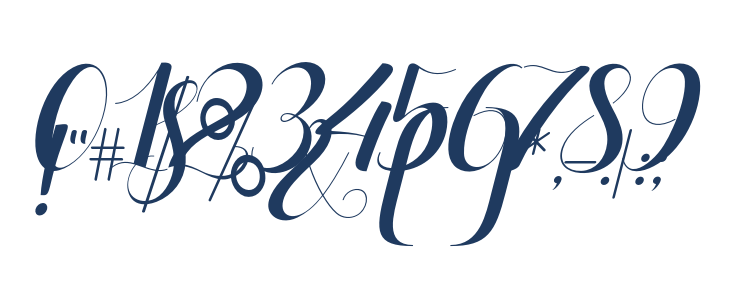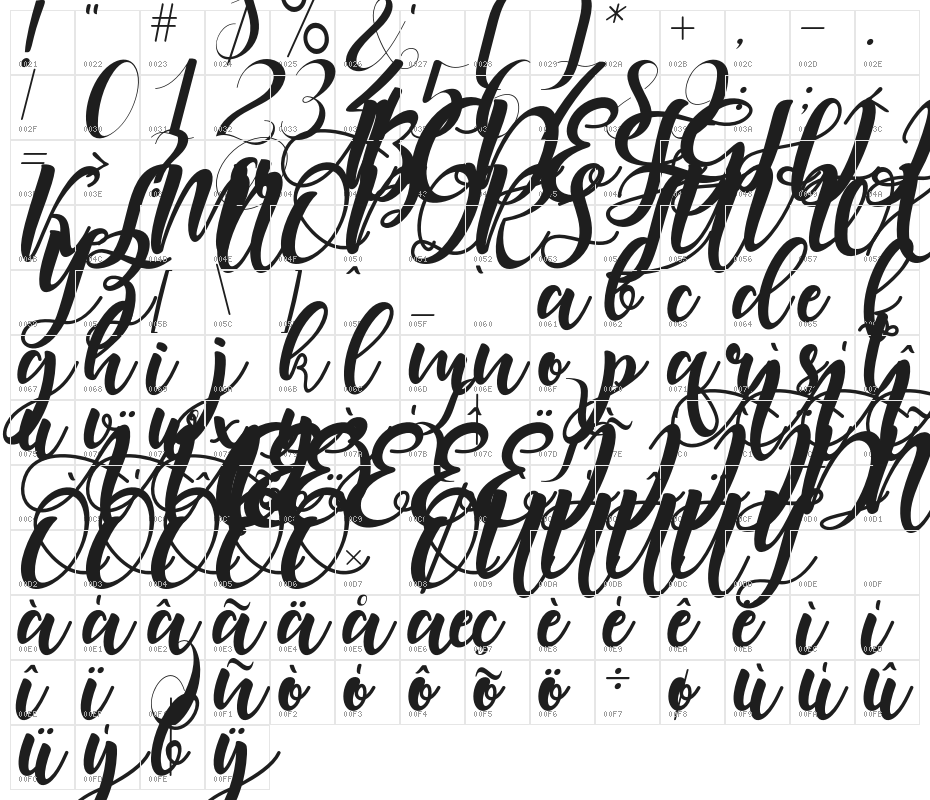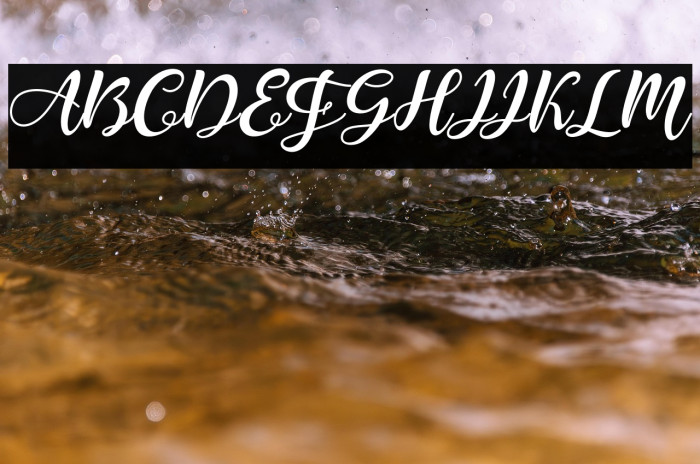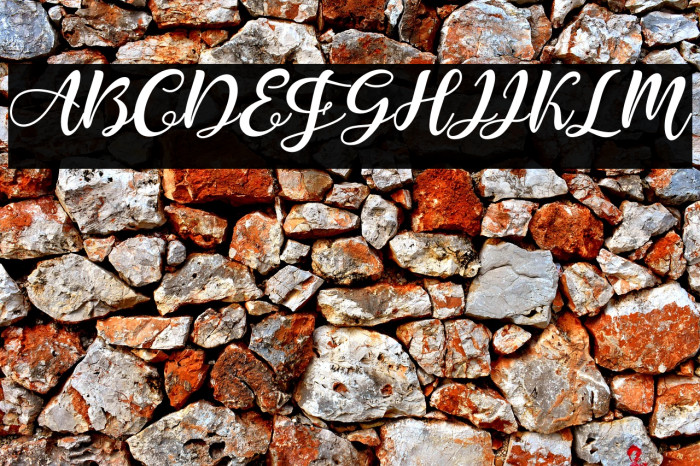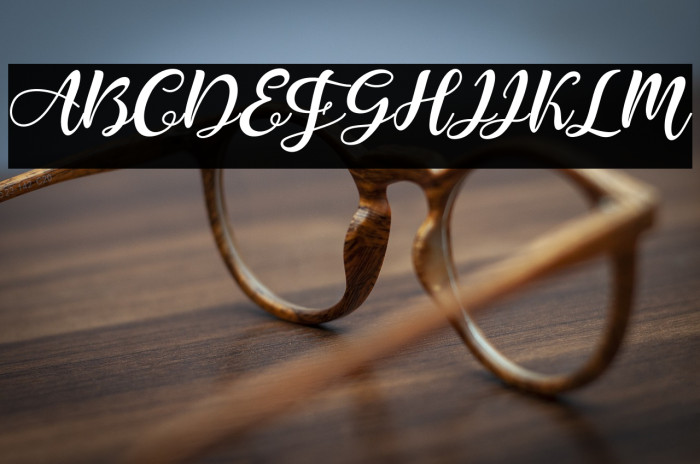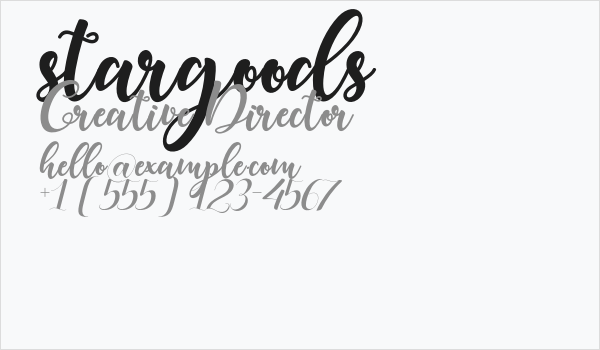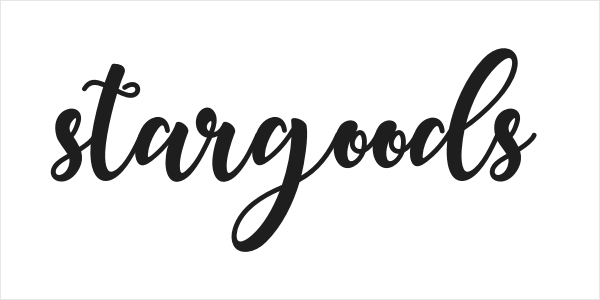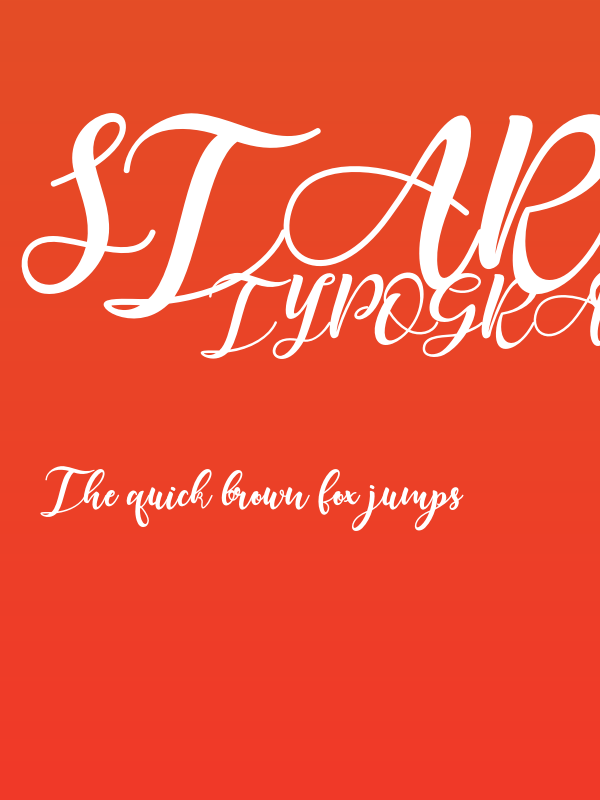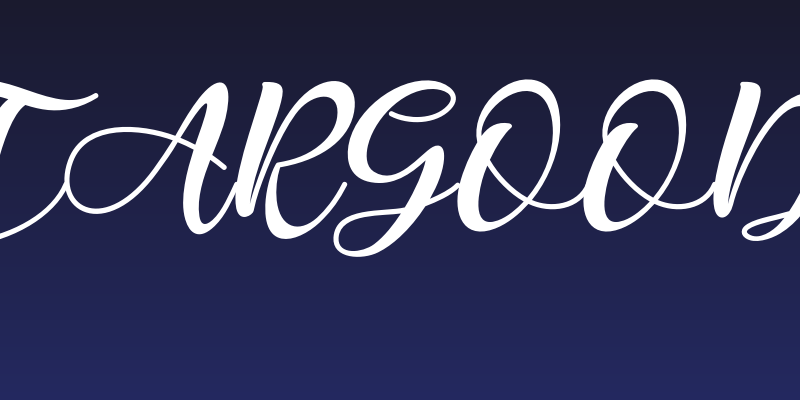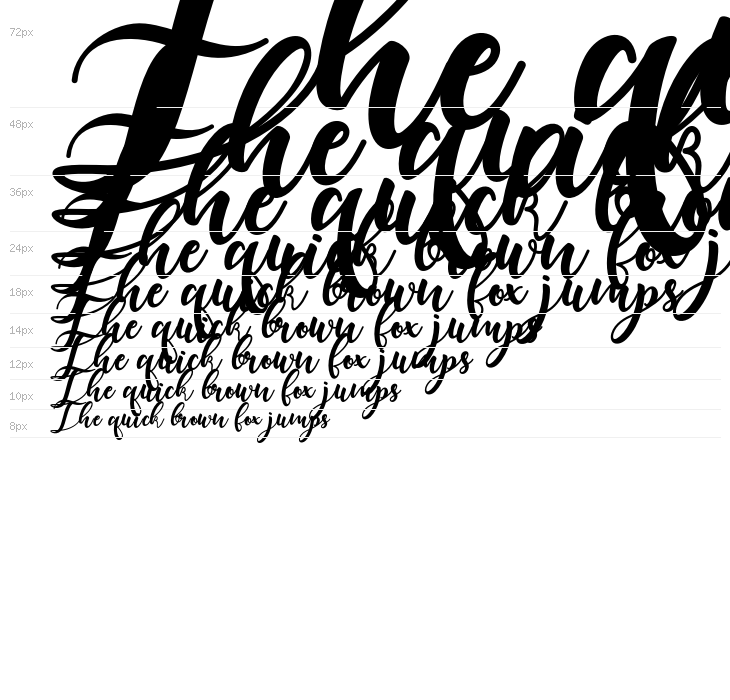
stargoods Font
stargoods Description
This font features a flowing, cursive style with elegant loops and swashes, giving it a sophisticated and artistic appearance. The uppercase letters are characterized by their graceful curves and fluid connections, while the lowercase letters maintain a consistent script style that complements the uppercase. The numerals are designed with a similar flair, incorporating smooth lines and subtle embellishments. Special characters are integrated seamlessly, maintaining the overall aesthetic. This font exudes a sense of elegance and creativity, making it ideal for projects that require a touch of class and personality.
| Overall Style | Elegant, Artistic |
| Proposed Projects | Ideal for wedding invitations, greeting cards, branding, and elegant logo designs. |